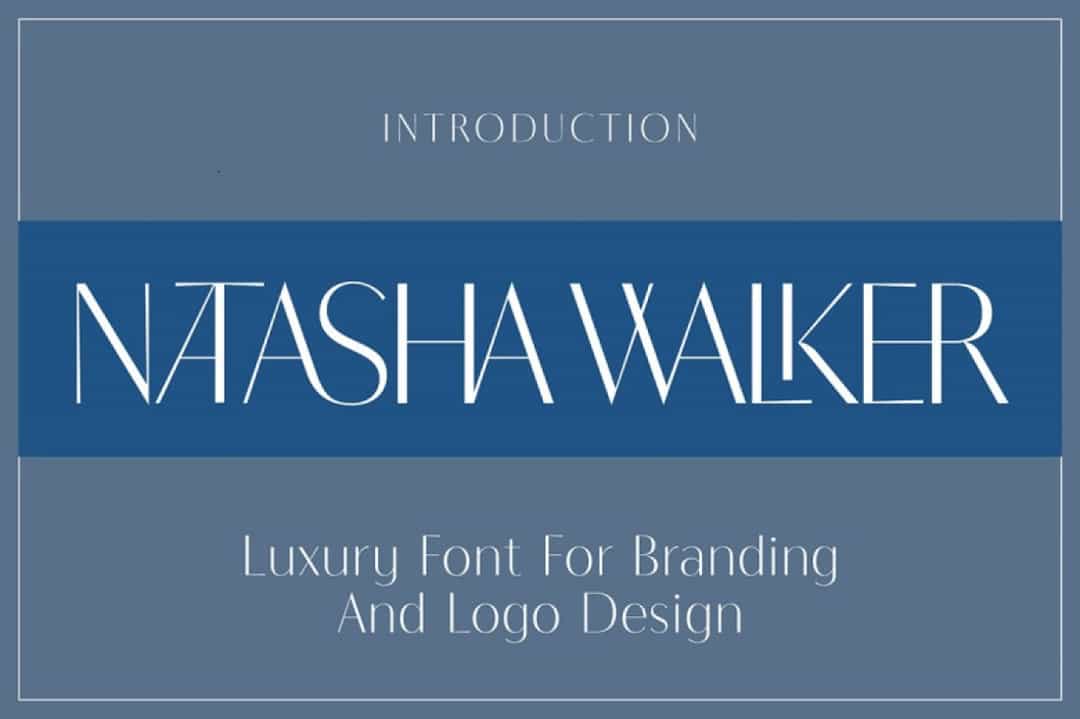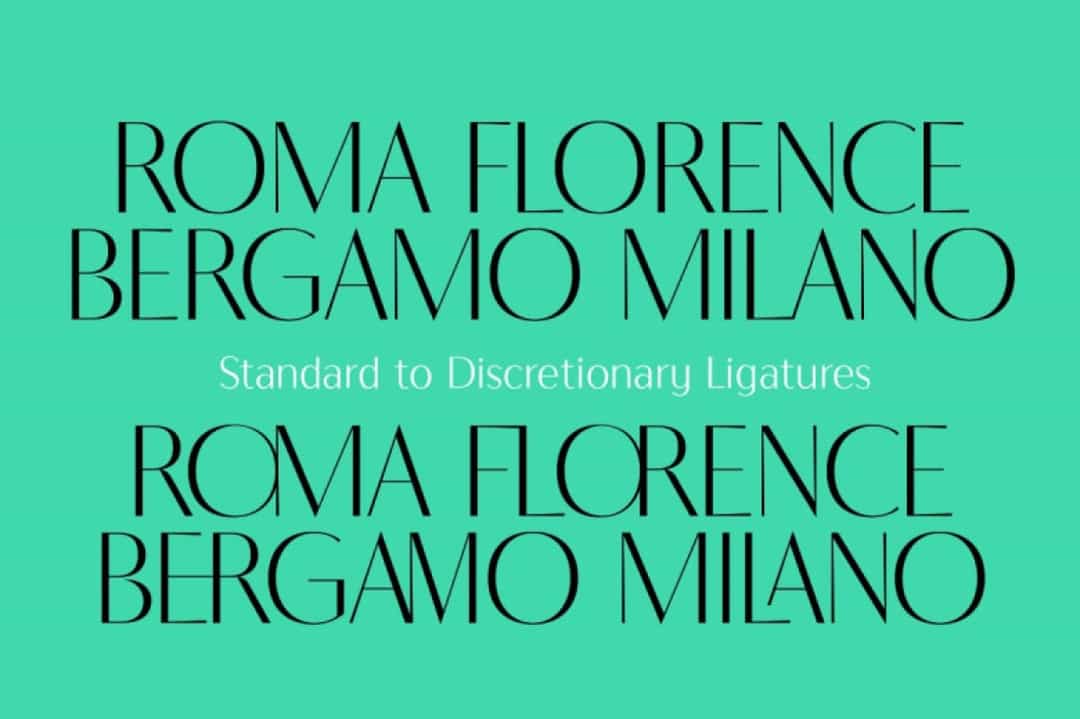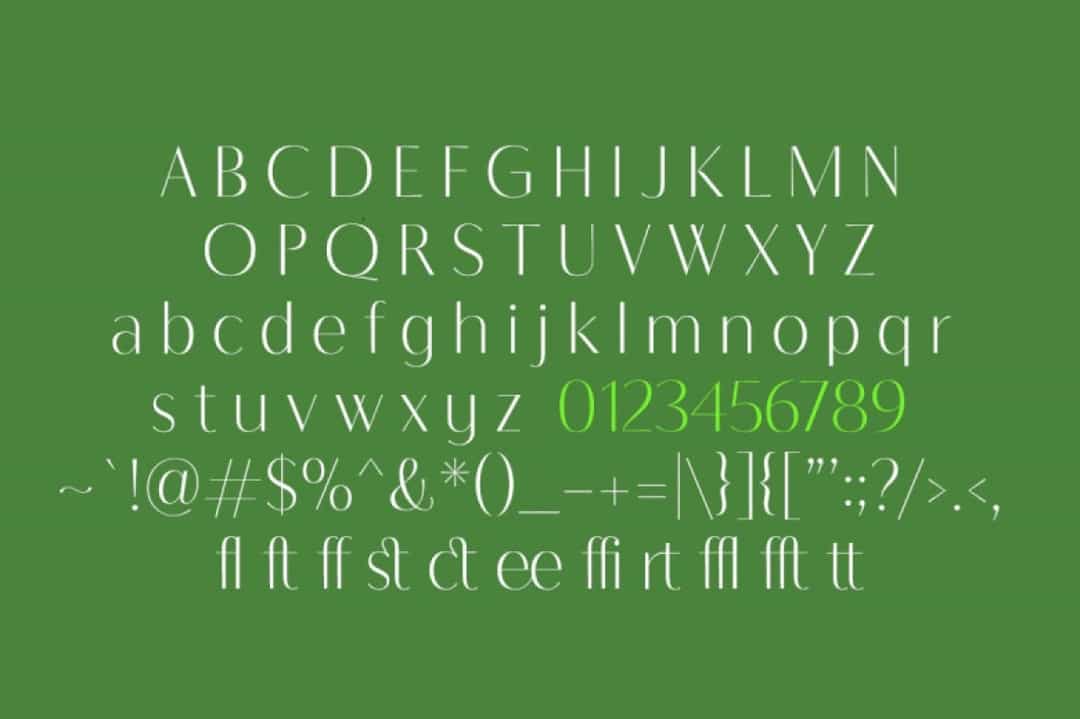
Natasha Walker is an elegant yet simple sans serif font designed by Solidtype that will surely become one of your go-to fonts, no matter the occasion! You are certain to fall in love with its sophisticated yet simple design! Natasha Walker will surely become your go-to font!